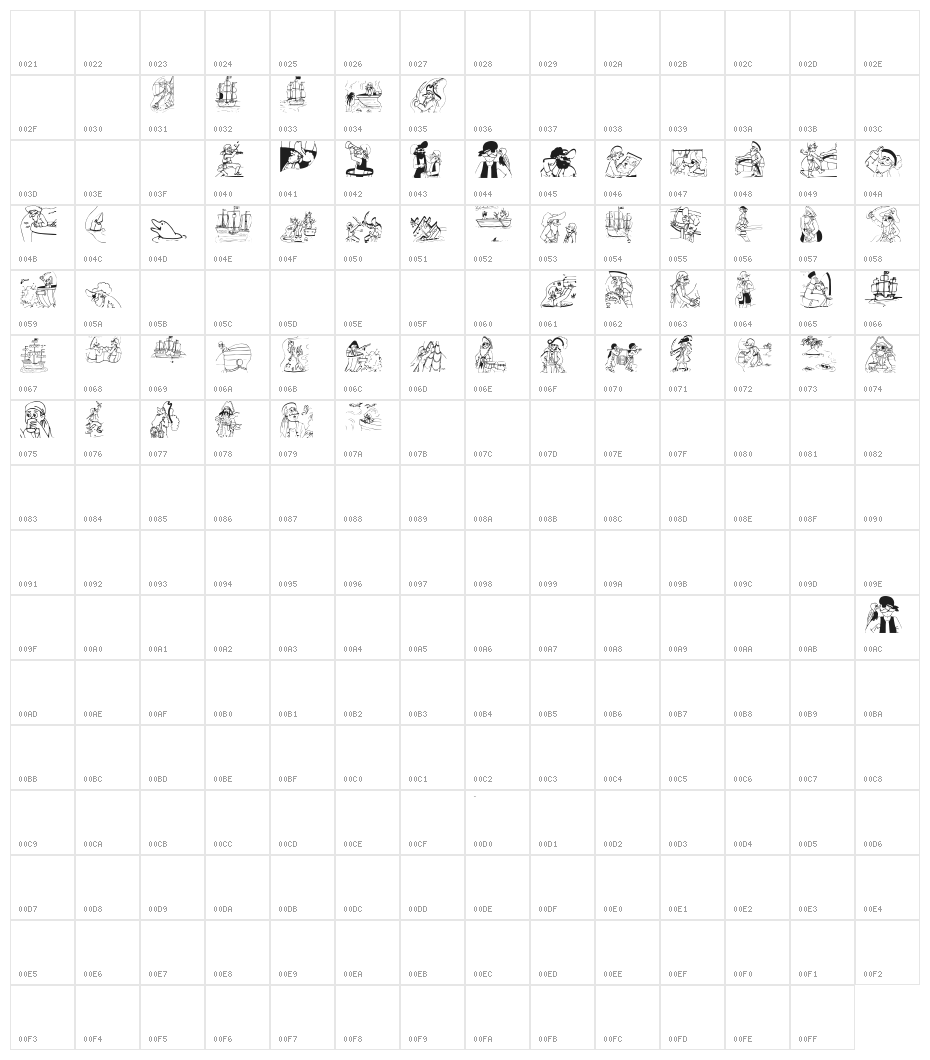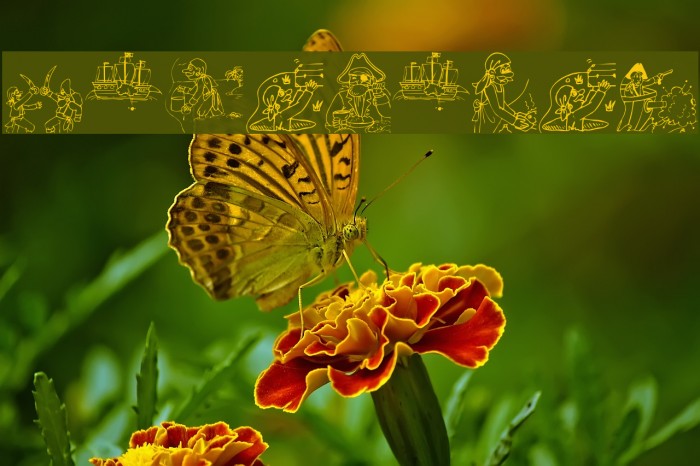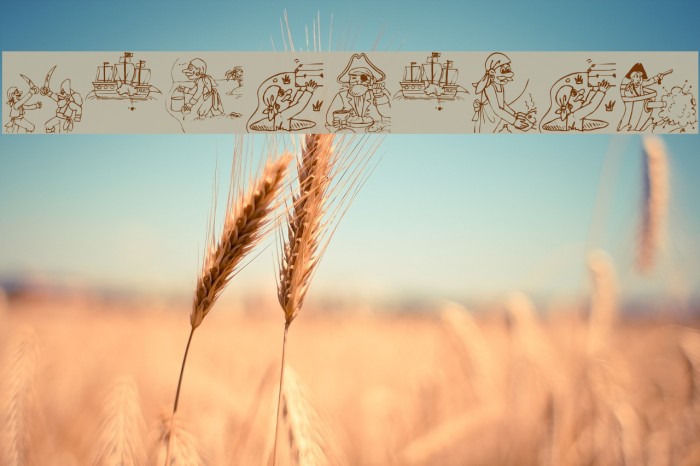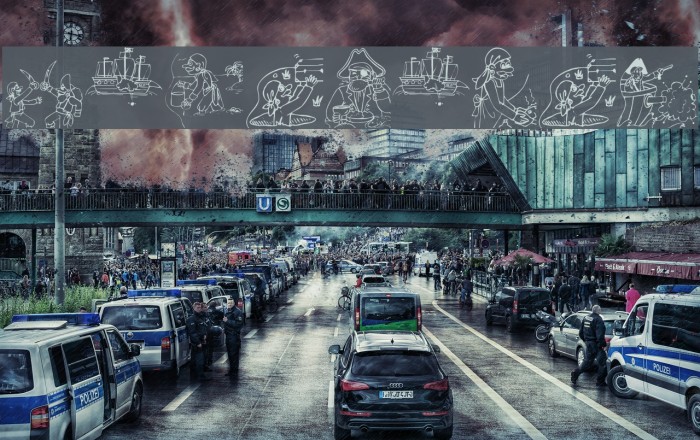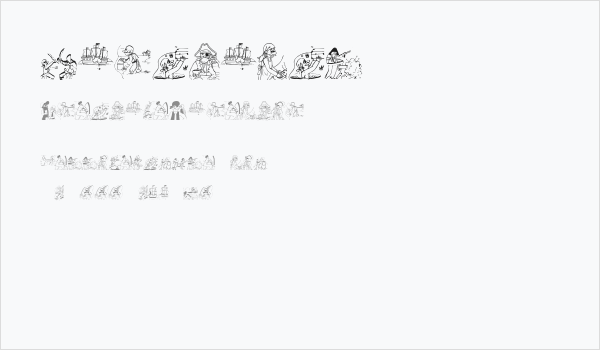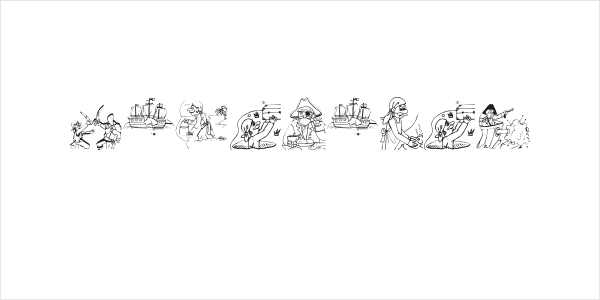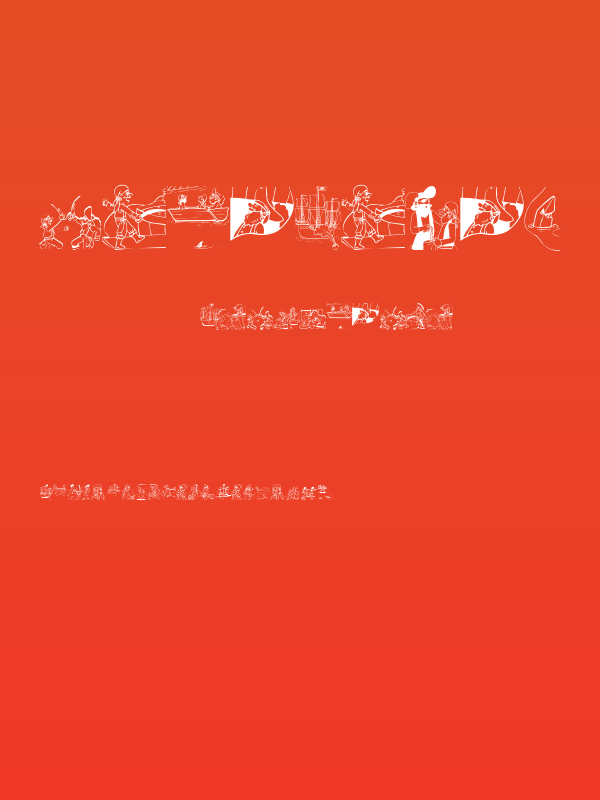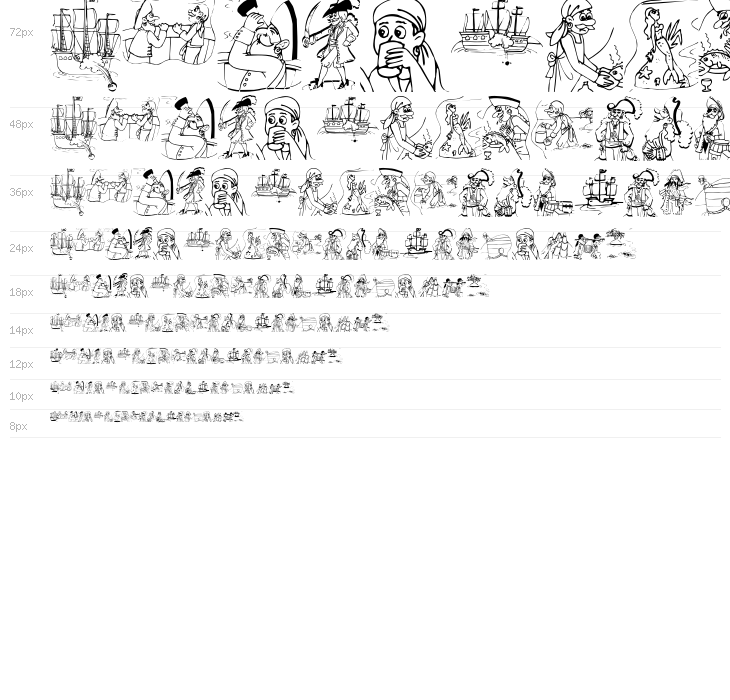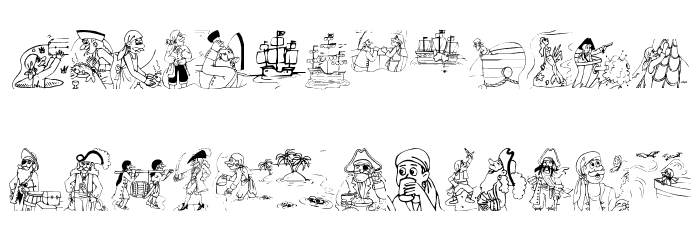
Piratical Font
Piratical Description
A highly decorative and illustrative font where each character is represented by a unique pirate-themed cartoon drawing, featuring pirates, ships, treasure, and sea creatures. The style is playful and detailed, with each glyph acting as a miniature scene rather than a traditional letterform.
| Overall Style | Decorative, Whimsical, Thematic |
| Use Case | Headlines, Posters, Themed graphics |
| Proposed Projects | ChildrenΓ’β¬β’s books, pirate party invitations, themed posters, educational materials, novelty merchandise. |